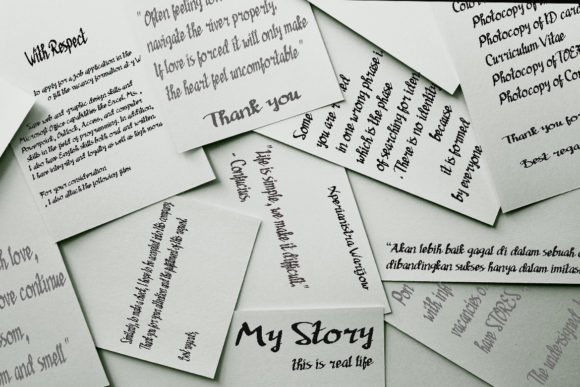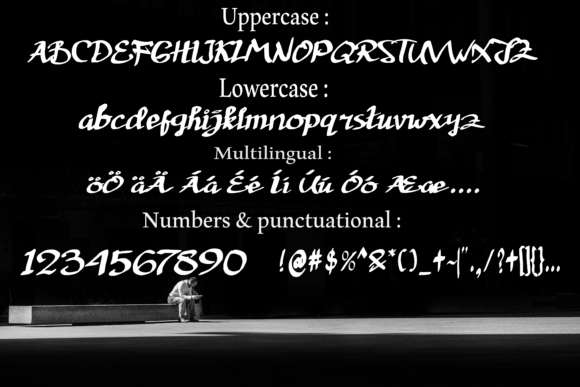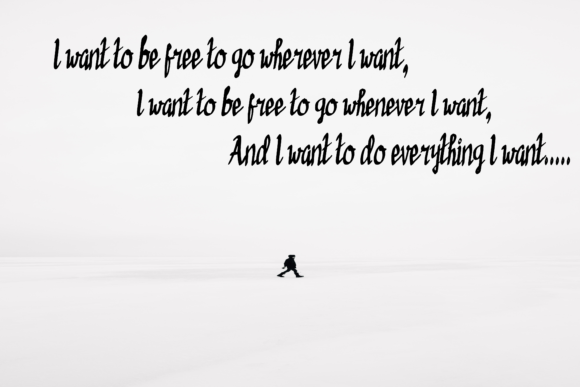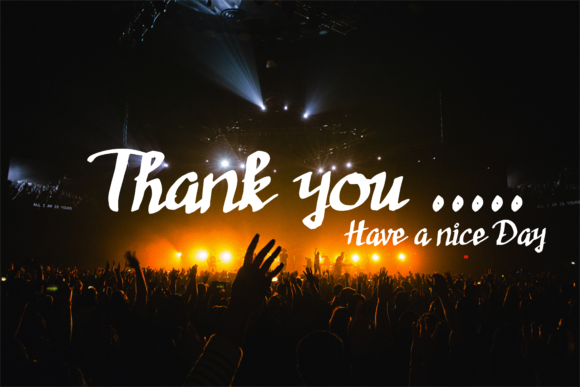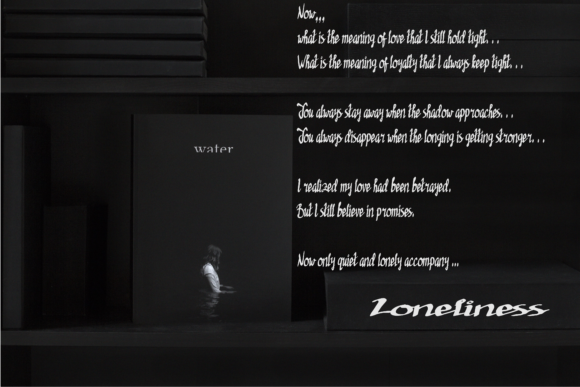
Introduction to RahayuX Font
Have you ever been working on a creative project, pouring your heart and soul into it, only to feel like something’s missing? That’s exactly what happened to me when I stumbled upon the RahayuX Font. Its unique blend of modern elegance and artistic flair was the missing piece I needed to elevate my design to the next level.
As a designer, you know how crucial it is to have a reliable design resource that can help you stand out from the crowd. The RahayuX Font is more than just a pretty face – it’s a high-quality tool that can add a touch of sophistication to any project. With its transparent background and clean lines, this font is perfect for designers who want to create visually striking designs without compromising on quality.
Key Features of RahayuX Font
- High-resolution design, ensuring crisp and clear text display, perfect for print and digital applications.
- RahayuX Font is designed to be highly versatile, suitable for use in a variety of creative projects, from logos to typography-based designs.
Honest Review: RahayuX Font
As a designer, I’m always on the lookout for high-quality design resources to enhance my creative projects. Recently, I had the chance to work with the RahayuX Font, and I’m excited to share my thoughts on this versatile font.
Here’s what works well: ✨ The RahayuX Font is incredibly legible, making it perfect for body text and headings alike. Its clean design and transparent background allow for seamless blending with any background, giving it a modern and sleek look. I also appreciate the free download option, which is a big plus for designers on a budget.
Some limitations: ⚠️ While the font is excellent for digital projects, it may not be the best choice for print materials due to its digital origin. Additionally, the font family is relatively small, so you may need to get creative with layering and stacking to achieve the desired look.
Overall, I’m impressed with the RahayuX Font’s potential and versatility. It’s a solid addition to any designer’s toolkit, especially for digital projects requiring a modern and clean aesthetic.
- High-quality, legible design
- Transparent background for seamless blending
- Perfect for digital projects
How to Use RahayuX Font
Design Resource for Your Creative Project
The RahayuX Font is a high-quality design resource that offers a free download with a transparent background. This versatile font is perfect for various creative projects, including graphic design, digital art, and typography.
Tips for Getting the Most Out of RahayuX Font
To get the most out of the RahayuX Font, experiment with different font sizes, colors, and combinations to create unique and eye-catching designs.
Common Use Cases for RahayuX Font
The RahayuX Font is suitable for a wide range of applications, including:
- Typography projects
- Digital art